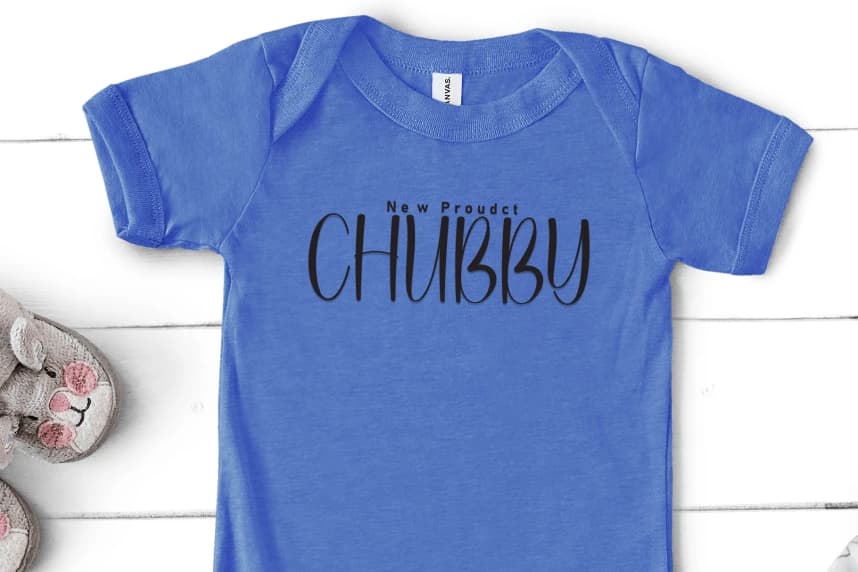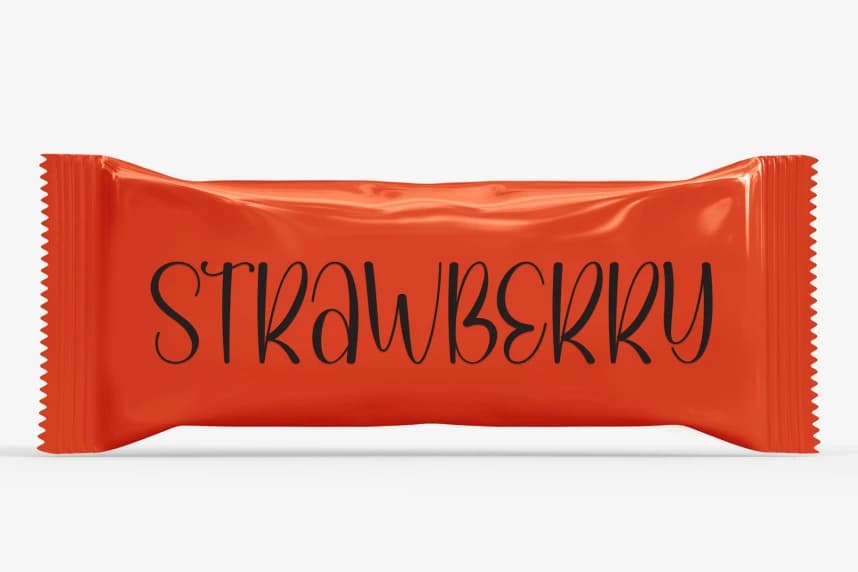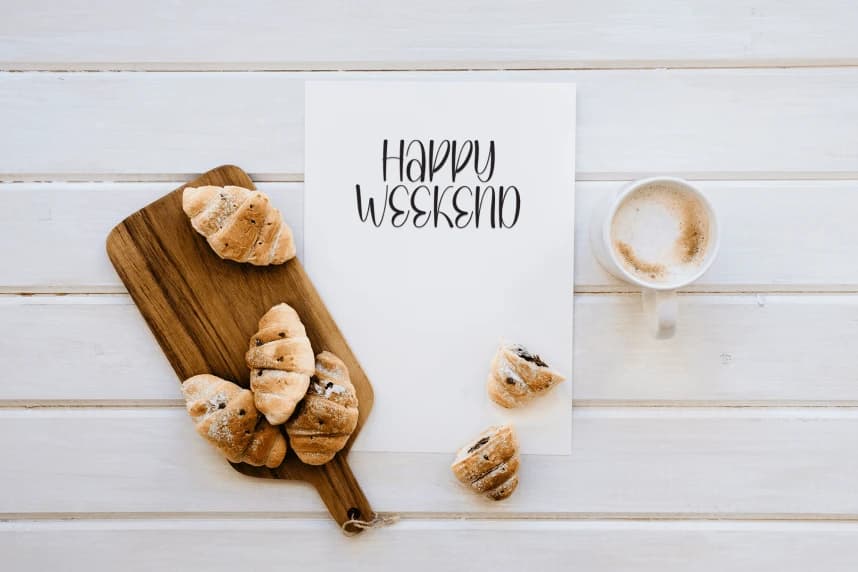
Sunday Birthday – Natural Script Handwritten Font
Sunday Birthday – Natural Script Handwritten Font is a sweet and friendly handwritten display font. Cute and fun, this font is ideal for writing wedding invitations, cards, or any other design that might need a playful touch!